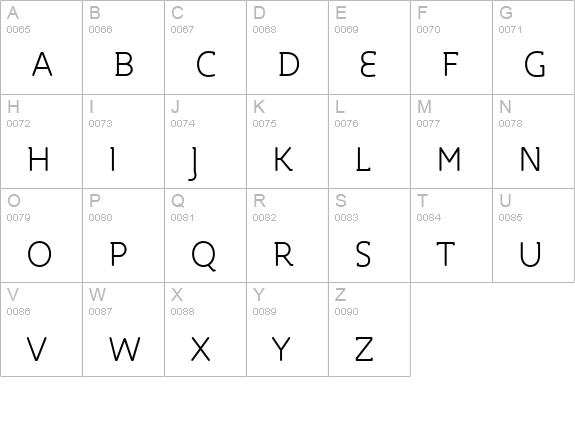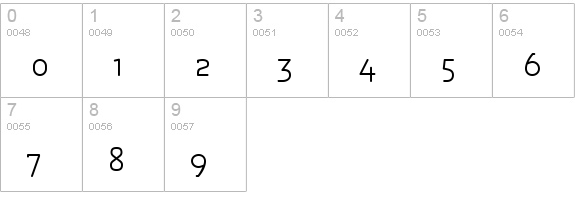
Roice-Light is a refined, elegant variant in the Roice typeface family \xE2\x80\x94 well suited to elegant body text, refined sub-headings, and luxury branding.
Introducing Roice-Light font, a sleek and modern typeface designed to elevate your designs to the next level. With its clean lines and sophisticated appearance, Roice-Light is perfect for a wide range of projects, from branding to editorial design. This versatile font exudes elegance and professionalism, making it a must-have in your font collection. The best part? Roice-Light is available for free download at FontsMarket.com. Now you can enhance your projects with this exquisite font without breaking the bank. Don't miss out on the opportunity to add Roice-Light to your design toolkit and create stunning visuals that stand out from the crowd. Download Roice-Light today and unleash your creativity like never before!